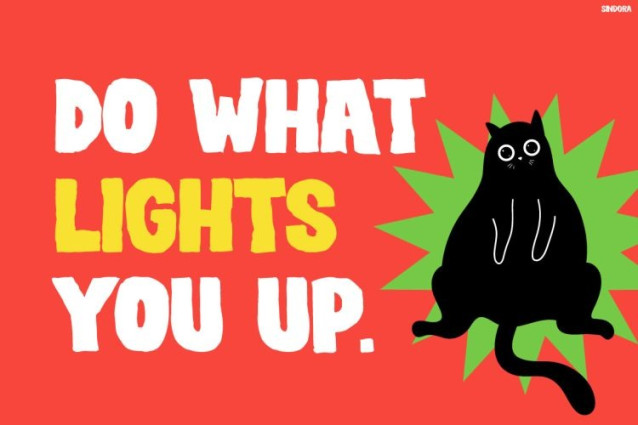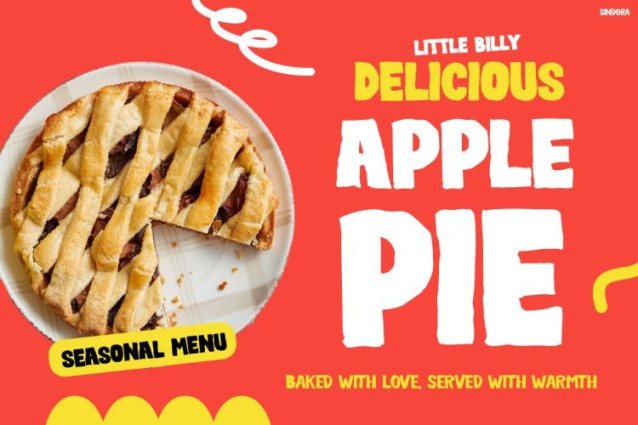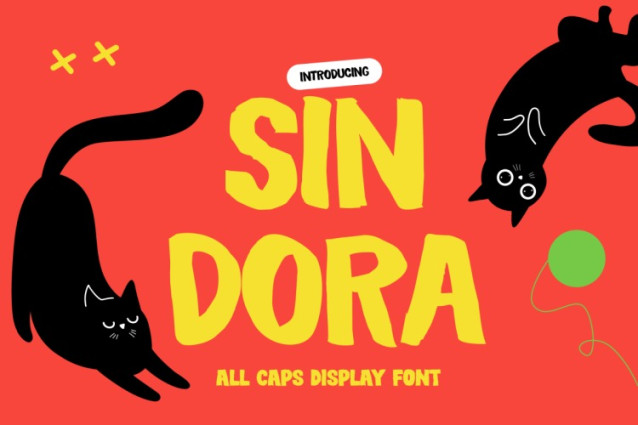
Sindora Font
Sindora Font shines with bold all-caps letters and playful. It cleverly mixes vibrant colors, creating a fun and unique look. The rounded, thick strokes feel soft yet strong. Moreover, quirky cat motifs add mischief and joy. As a result, every design feels lively and welcoming. Plus, its high-contrast style ensures easy reading from afar. Therefore, it’s perfect for headlines, posters, and packaging. Additionally, the font’s cartoon-inspired charm brings instant smiles. In addition, bright reds, yellows, and greens create an energetic atmosphere. Consequently, projects pop with cheerful vibes right away.
Sindora is a cheerful all-caps display font built for big impact and endless creativity. These features work harmoniously together, giving text a dynamic and playful personality. Furthermore, the font thrives in vibrant layouts, often set against solid color blocks or paired with appetizing food photography and cute illustrations. Whether used for motivational messages, product promotions, seasonal menus, or branded packaging, Sindora consistently adds a layer of fun and approachability. Its thick, rounded forms maintain excellent legibility, while simultaneously delivering a distinctly childlike energy. Overall, the typeface effortlessly transforms everyday graphics into joyful, attention-grabbing pieces. Thus, it feels fresh and inviting across both digital and print media.
Ideal Users
Kids Font Sindora perfectly suits graphic designers who want a kid-friendly touch. Educators love it for classroom materials, posters, and worksheets. Marketers targeting families find it ideal for campaigns. In addition, parents use it for invitations, banners, and scrapbooks. Cafe owners and bakeries make menus and specials pop with energy. Toy brands add appeal to labels and packaging. Children’s book authors enhance covers and titles effortlessly. Bloggers create engaging social media posts quickly. Party planners design themed decorations with ease. Consequently, social media creators stand out with its warm, playful personality. Small shops boost sales through eye-catching signs. Therefore, anyone aiming for fun, approachable designs benefits greatly from this versatile typeface.